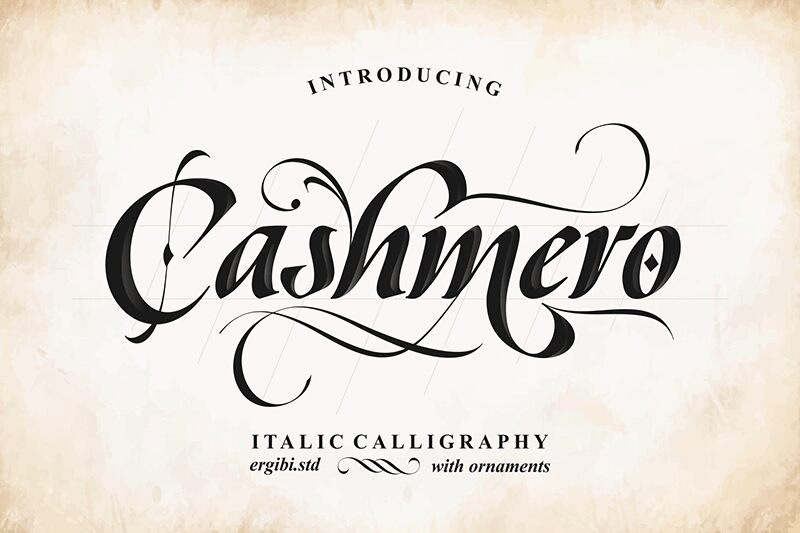
Cashmero font by Riyadh Rahman of Ergibi is a free calligraphy typeface with a plush, inky flow that feels almost like it’s been painted with a loaded brush. The strokes are thick and velvety, with gentle curves that glide into sharp, confident endings, giving every word a sense of drama and luxury. It’s elegant without feeling fragile, which makes it stand out from lighter, more delicate scripts.
Using Cashmero, this free font shines on beauty branding, perfume or candle packaging, boutique logos, event invitations, menu headings, and bold social media quotes. The generous weight holds up beautifully at larger sizes, where its rich texture and sweeping rhythm can really breathe. For a clean, modern combo, pair Cashmero with a simple sans serif for supporting text and let the script handle names, titles, and hero phrases.